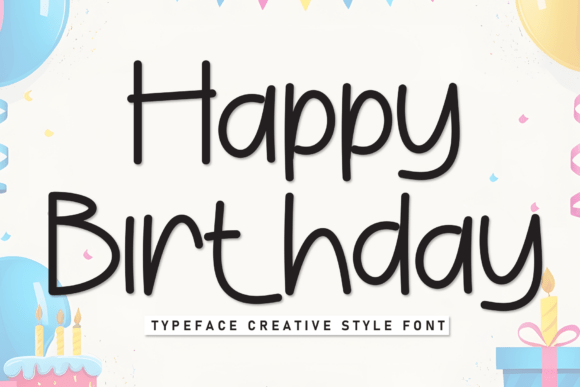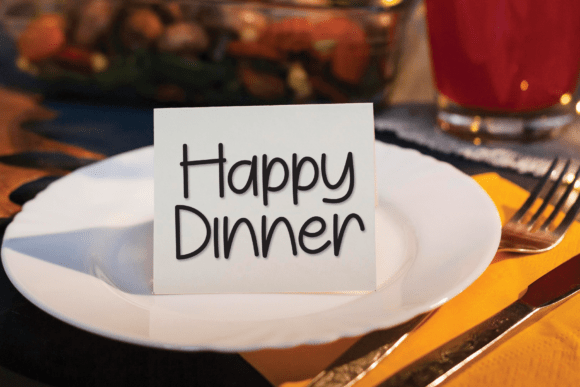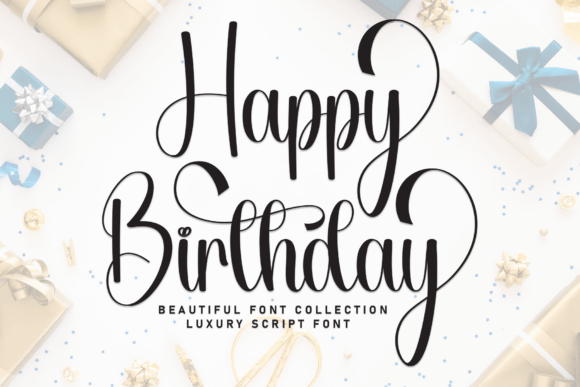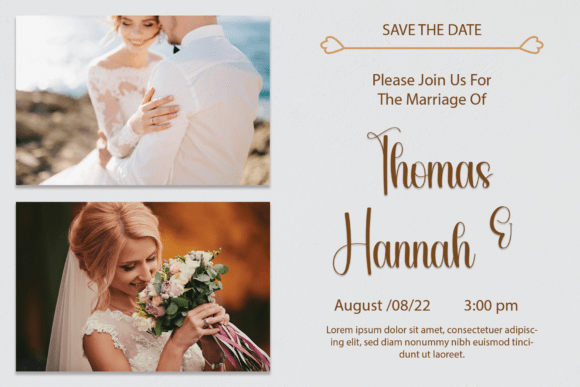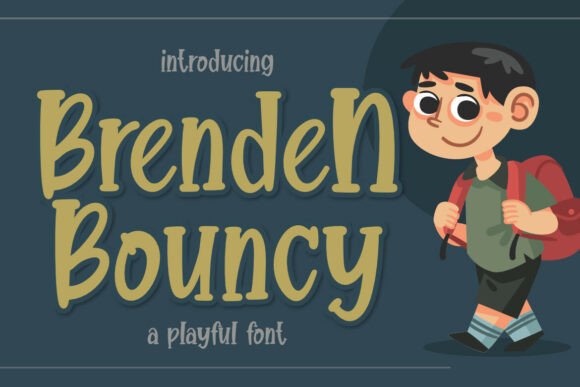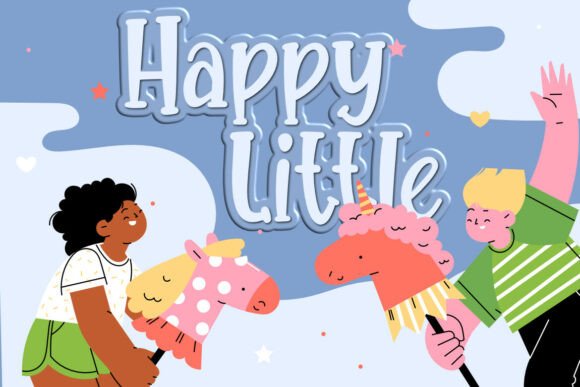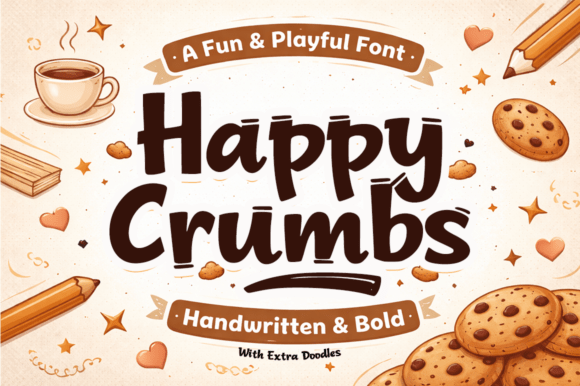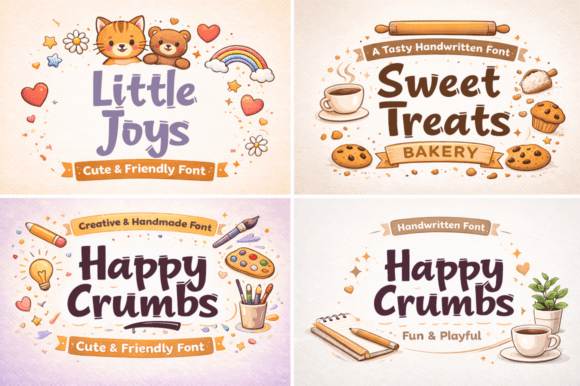
26 Best Happy Birthday Fonts to Celebrate Your Next Special Event
Planning a celebration requires the perfect aesthetic to set the tone. Whether you are crafting custom invitations, designing festive banners, or personalizing greeting cards, the typography you choose makes all the difference. In this guide, we explore a curated selection of 26 creative styles to help you find the ideal Happy Birthday Fonts for your design library.
Top Trending Happy Birthday Fonts for Designers
Happy Birthday Font
This playful and festive font is perfect for designing greeting cards, banners, and children’s invitations, adding a cheerful touch to any project. Its expressive letterforms will ensure your headlines are truly memorable.
Happy Birthday Font
This playful and festive font is the perfect accent for designing greeting cards, invitations, and celebratory banners. Its dynamic style brings a cheerful touch to any creative project featuring Happy Birthday Fonts.
Brenden Bouncy Font
This playful and energetic typeface is a standout among Happy Birthday fonts, making it perfect for festive lettering and party decorations. Its bouncy characters bring a sense of joy and charm to any celebratory happy birthday design.
Happy Crumbs Font
Happy Crumbs is a charming and playful handwritten font that perfectly complements birthday card designs, children’s invitations, and festive lettering. Its soft strokes and friendly aesthetic make it a standout choice among Happy Birthday types.
Happy Birthday Duo Font
This delightful font duo is perfect for creating festive cards, party decor, and children’s invitations. Its playful design and handwritten accents make these Happy Birthday tools an excellent choice for any celebratory occasion.
Birthday Font
This playful festive font is perfect for creating greeting cards, party decor, and children’s event designs. Its lighthearted and joyful style will instantly add a fun atmosphere to any creative project.
Happy Place Font
This playful and energetic typeface is one of those Happy Birthday fonts that are perfect for crafting festive designs and birthday cards. It adds a cheerful, bouncy touch to any themed party decorations or happy birthday design project.
Brick Stacked Font
This creative and dimensional typeface is the perfect choice for festive designs, adding a unique and playful touch to your projects. It works beautifully for crafting stylish greeting cards and signage.
Hello Birthday Font
This charming handwritten font is perfect for creating festive cards, invitations, and stylish decor, adding a touch of joy to any design. It serves as a fantastic addition to any collection.
Cute Kid Marker Pen Font
This playful handwritten typeface is perfect for crafting festive signage, greeting cards, and party decor, bringing a cheerful touch to any project. It offers a whimsical charm and friendly aesthetic.
Happy Baloo Font
Happy Baloo is a playful and charming typeface that serves perfectly as a font for creating festive greeting cards, children’s invitations, and fun decorative lettering.
Bouncy Balloon Font
This playful typeface is perfect for festive designs like greeting cards and banners, thanks to its dynamic, inflated appearance. It is a fantastic choice to add a cheerful and celebratory touch.
Happy Birthday Font
This festive and playful typeface is one of our favorite Happy Birthday fonts for creating greeting cards, party decor, and children’s projects. Its unique character instantly adds a joyful atmosphere to any happy birthday design layout.
Jumping Letters Font
Jumping Letters is a playful and bouncy typeface that brings a fun, energetic vibe, making it the perfect choice for eye-catching designs and celebrations.
Happy Birthday Font
This playful festive font is perfect for creating greeting cards, decorating children’s parties, and design projects that require a joyful atmosphere. With its soft and friendly style, it adds a fun accent.
Chalksy Font
This charming chalkboard-style typeface is a unique choice among Happy Birthday fonts, adding a touch of hand-drawn warmth to your invitations. It is perfect for creating festive lettering and personalized greeting cards for any happy birthday design.
Happy Birthday Font
This festive font features playful letterforms, making it the perfect choice for crafting personalized greeting cards, party designs, and children’s projects.
Happy Birthday Font
This playful and festive font is perfect for designing greeting cards, children’s party decor, and eye-catching headlines. Its unique style will add a joyful mood to any creative project.